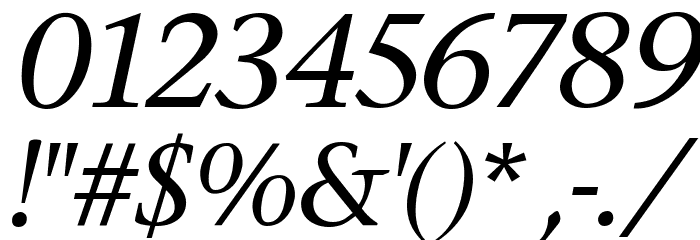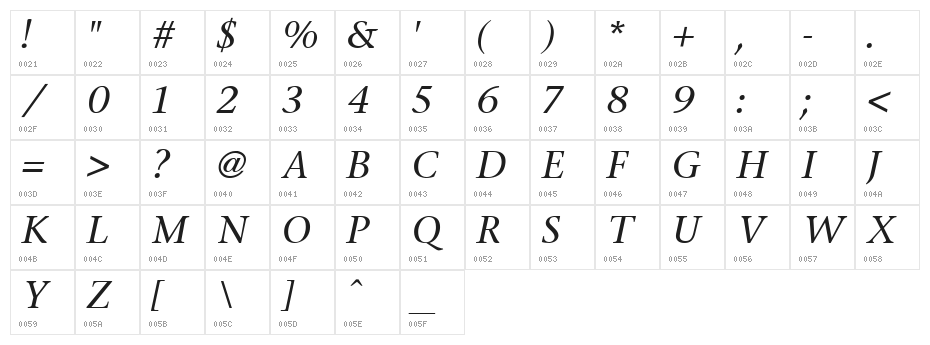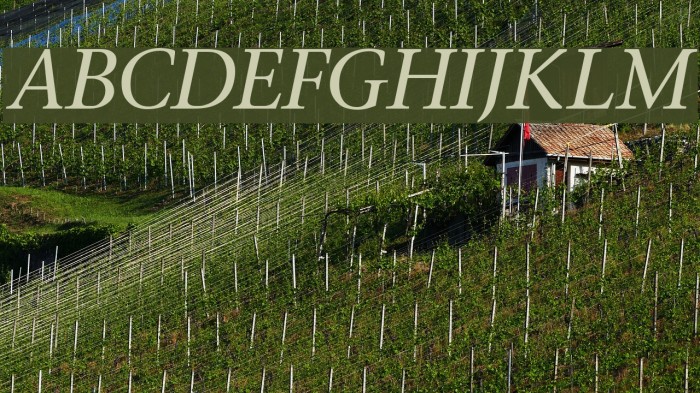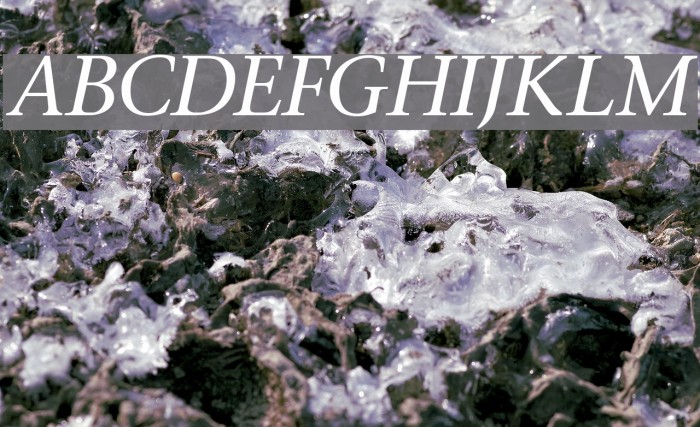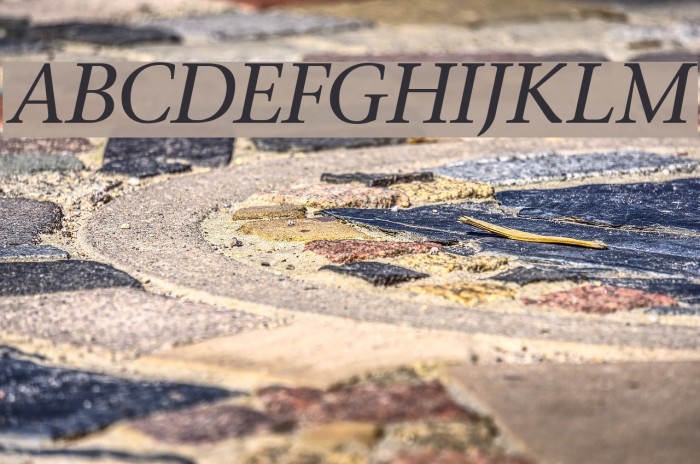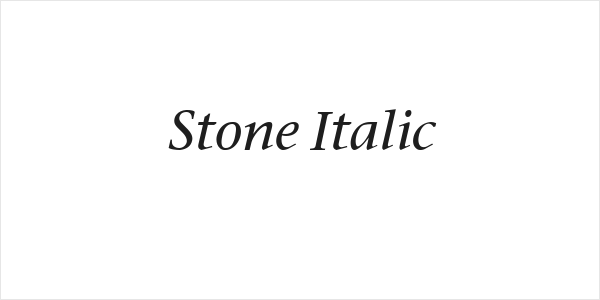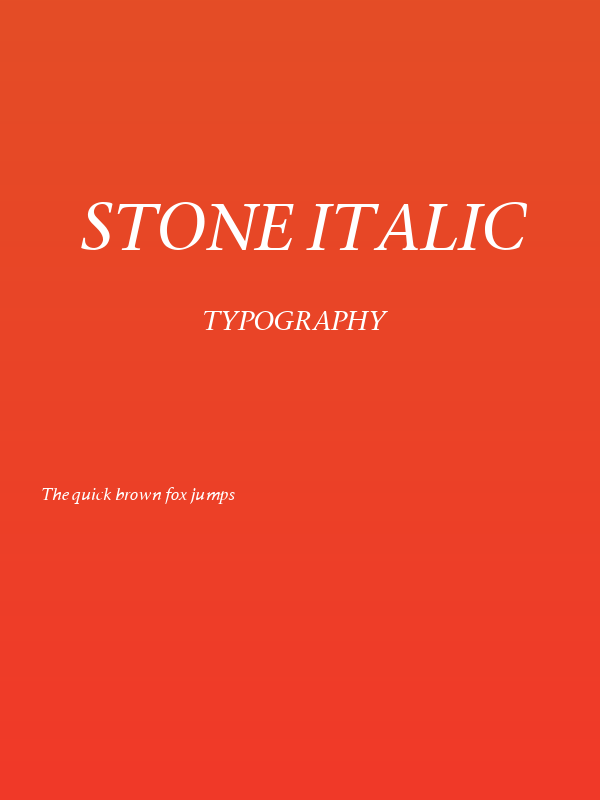
Stone Italic Font
Stone Italic Description
This font exhibits a classic and elegant serif style with a distinct italic slant, giving it a sophisticated and refined appearance. The characters are well-proportioned, with smooth curves and sharp serifs that enhance readability while maintaining a stylish flair. The uppercase letters are tall and commanding, while the lowercase letters are more delicate, providing a nice contrast. The numerals are clear and consistent, and the special characters are thoughtfully designed to match the overall aesthetic. This font is suitable for conveying a sense of tradition and formality.